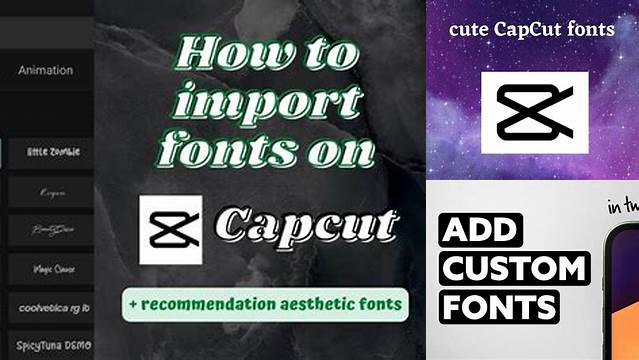
Get Cool CapCut Fonts For Your Edits!
Hey guys! Are you ready to level up your CapCut game? One of the easiest ways to make your videos pop is by using awesome fonts. You know, the kind that grabs attention and makes your edits look super professional. And the best part? You can download CapCut fonts for edits and use them to your heart's content! We're diving deep into everything you need to know about finding, downloading, and using these fonts to make your videos shine. Whether you're a total newbie or a seasoned video editor, this guide has something for everyone. Let's get started and make your edits the envy of all your friends!
1. Why Fonts Matter in CapCut Editing
Okay, let's be real. Why bother with fonts? Well, think about it – a good font isn’t just about making your text readable; it's about setting the mood, conveying your message, and making your videos more engaging. When you use the right font, your viewers will feel more connected to your content. Using the default fonts can be boring. But with CapCut fonts for edits download, you open up a whole world of possibilities! Imagine the difference between a plain, sans-serif font and a cool, handwritten-style font for your travel vlog. Or maybe a bold, impactful font for your gaming channel's intro? Fonts create a personality for your videos. They help you build a brand, and they make your content stand out in the crowded world of social media. It’s like choosing the right outfit – you want to look your best, right? In video editing, the fonts are your outfit. They speak volumes about you and your style. Plus, using custom fonts adds a layer of professionalism that can really elevate your work. So, next time you're editing, remember: fonts are more than just text; they're a key part of your storytelling.
2. Finding Free CapCut Fonts to Download
Alright, now for the fun part: finding the fonts! Luckily, there are tons of free resources where you can download CapCut fonts for edits. You don't have to break the bank to get access to some amazing fonts. Websites like Google Fonts are a goldmine. They offer a vast collection of fonts that are completely free to use, both commercially and personally. You can easily browse through different styles, from elegant serifs to playful scripts, and find the perfect match for your video project. Another great option is DaFont. It has a huge library of fonts, but it’s a good idea to double-check the licensing for each font. Some fonts are free for personal use only, while others are free for commercial use as well. Always read the fine print! You can also explore sites like Font Squirrel, which curate high-quality, free fonts. The advantage of using these types of resources is that you can download the font files (usually in .ttf or .otf format) directly to your computer. Once you have them, you can upload them to CapCut. Don't forget to always check the license to ensure you're using the fonts legally. The websites I have mentioned here are a great starting point for your font journey.